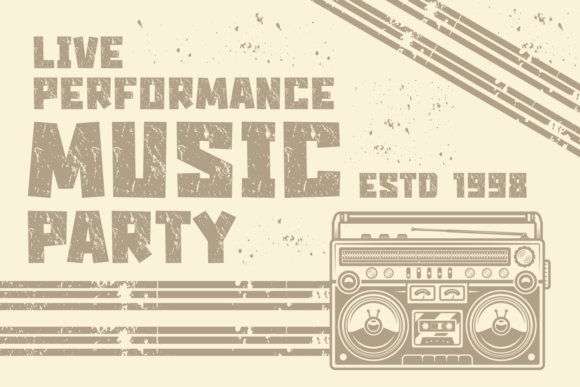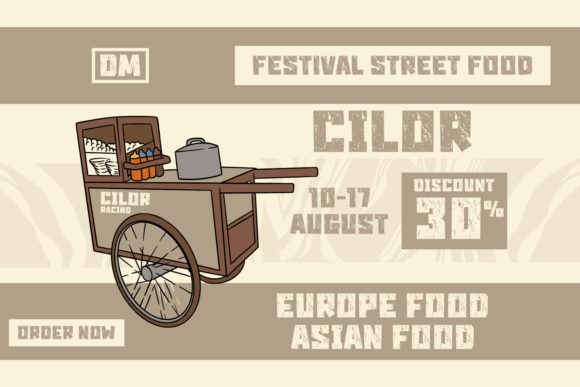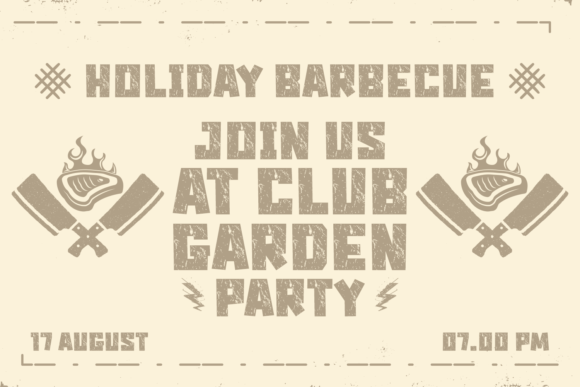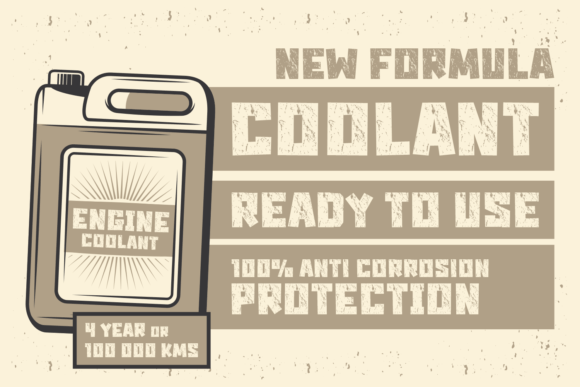
Introduction to Dames Mowes Font
Have you ever found yourself rummaging through an old trunk in your attic, unearthing forgotten memories and dusty relics from your childhood? That’s exactly what it’s like when you stumble upon the Dames Mowes Font – a nostalgic and high-quality display font that instantly transports you back in time. Its retro charm is undeniable, and with its incredible display capabilities, it’s the perfect design resource for adding a touch of vintage flair to your next creative project.
Key Features of Dames Mowes Font
- High-quality design resource for creative projects, offering a unique and elegant touch.
- Perfect for use in various creative projects, from logos and branding to typography and editorial content.
Honest Review: Dames Mowes Font
As a designer, I’m always on the lookout for high-quality design resources to elevate my creative projects. Recently, I stumbled upon the Dames Mowes Font, and I must say, it’s a great addition to my design toolkit.
What works well: ✨ The font is incredibly versatile, with a beautiful and elegant design that’s perfect for a wide range of creative projects. It’s also available for free download, which is a major plus in my book. The transparent background is another great feature that makes it easy to use in various design contexts.
- The font is available in several weights, making it easy to customize to suit your design needs.
However, there are a few limitations: ⚠️ The font is only available in a limited range of languages, which may be a drawback for designers working on international projects. Additionally, the font may not be suitable for very small text sizes due to its elegant design.
Overall, I’m very impressed with the Dames Mowes Font. Its high-quality design, versatility, and free download make it a great resource for designers. While it may have some limitations, I believe it’s a valuable addition to any design toolkit.
Tips for Getting the Most Out of Dames Mowes Font
For optimal results, use the Dames Mowes Font in conjunction with other design elements, such as graphics and images, to create a visually appealing design. Experiment with different font sizes and styles to find the perfect balance for your project.
The Dames Mowes Font is ideal for a variety of creative projects, including branding, marketing materials, and social media graphics. Its high-quality design and transparent background make it a valuable resource for designers and non-designers alike.